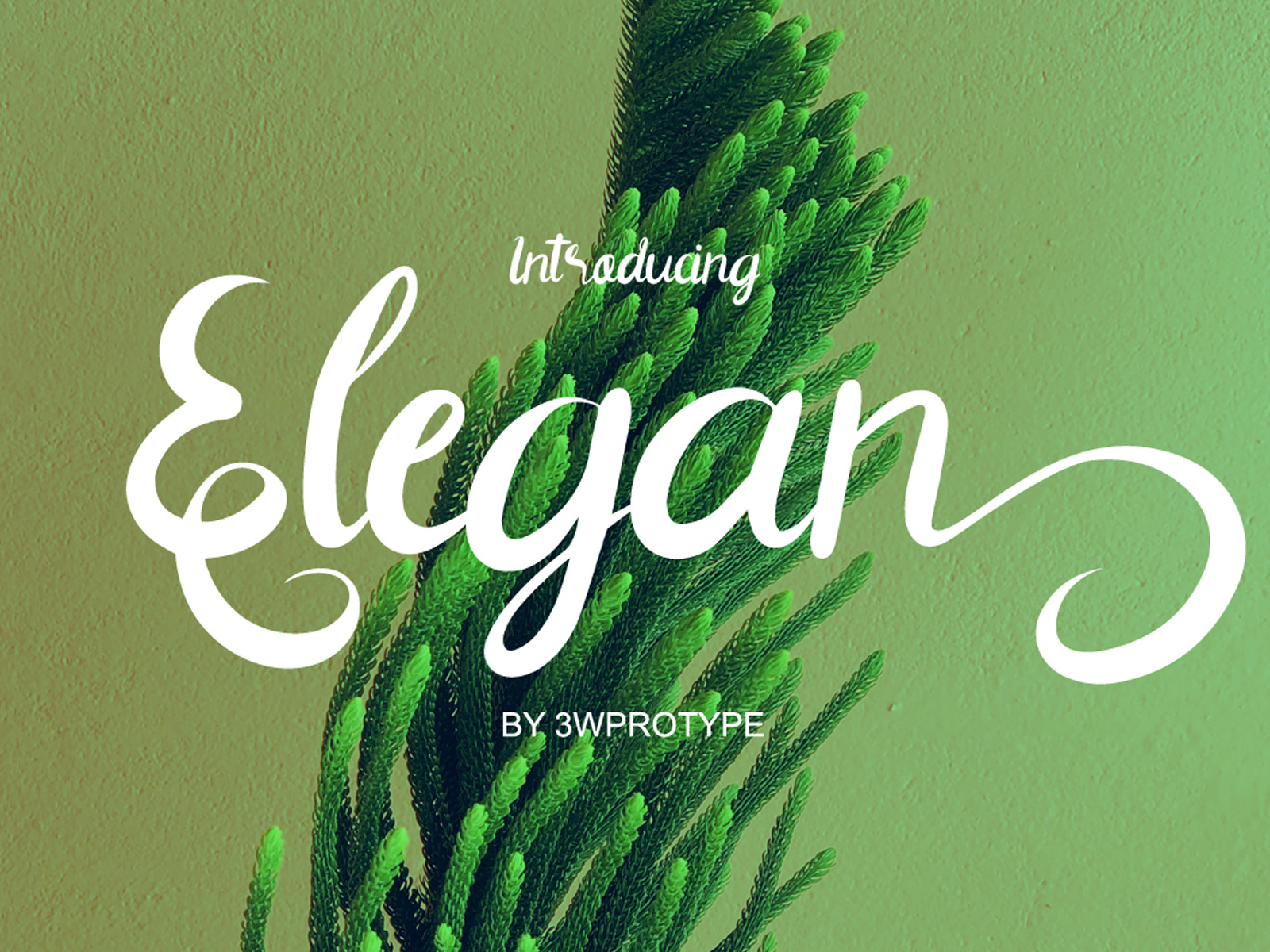
Elegan FREE FONT
Introducing Elegan regular font, that we created specifically for branding, business, quote and other needs. It is perfect for designers who are looking for a font that looks elegant and attractive and neat. highly recommended for designers who need a font with a natural and elegant handwriting style.